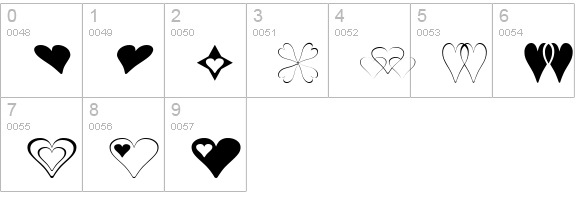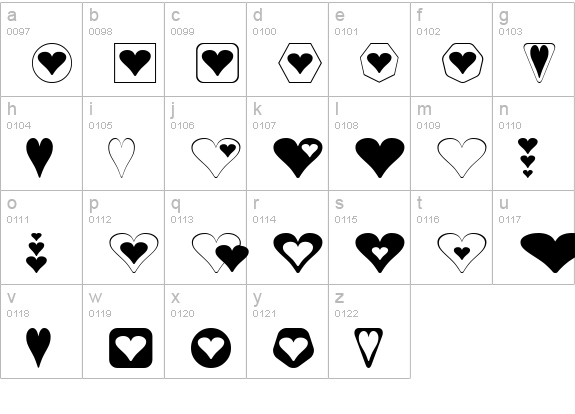
Hearts for 3D FX font is a stunningly beautiful typeface that will add a touch of romance and elegance to any design project. This font features intricately designed hearts that appear to pop off the page, creating a mesmerizing 3D effect. With its delicate curves and attention to detail, Hearts for 3D FX font is perfect for wedding invitations, love notes, and any other project that requires a touch of love and magic. What makes Hearts for 3D FX font even more appealing is that it is available for free. That's right, you can download this enchanting font at no cost from FontsMarket.com. Whether you're a professional designer or simply someone who loves to get creative, this free font will surely inspire you to create stunning and heartfelt designs. With Hearts for 3D FX font, expressing love and affection has never been easier or more visually captivating. So why wait? Download Hearts for 3D FX font for free today and let your designs come alive with the power of love.